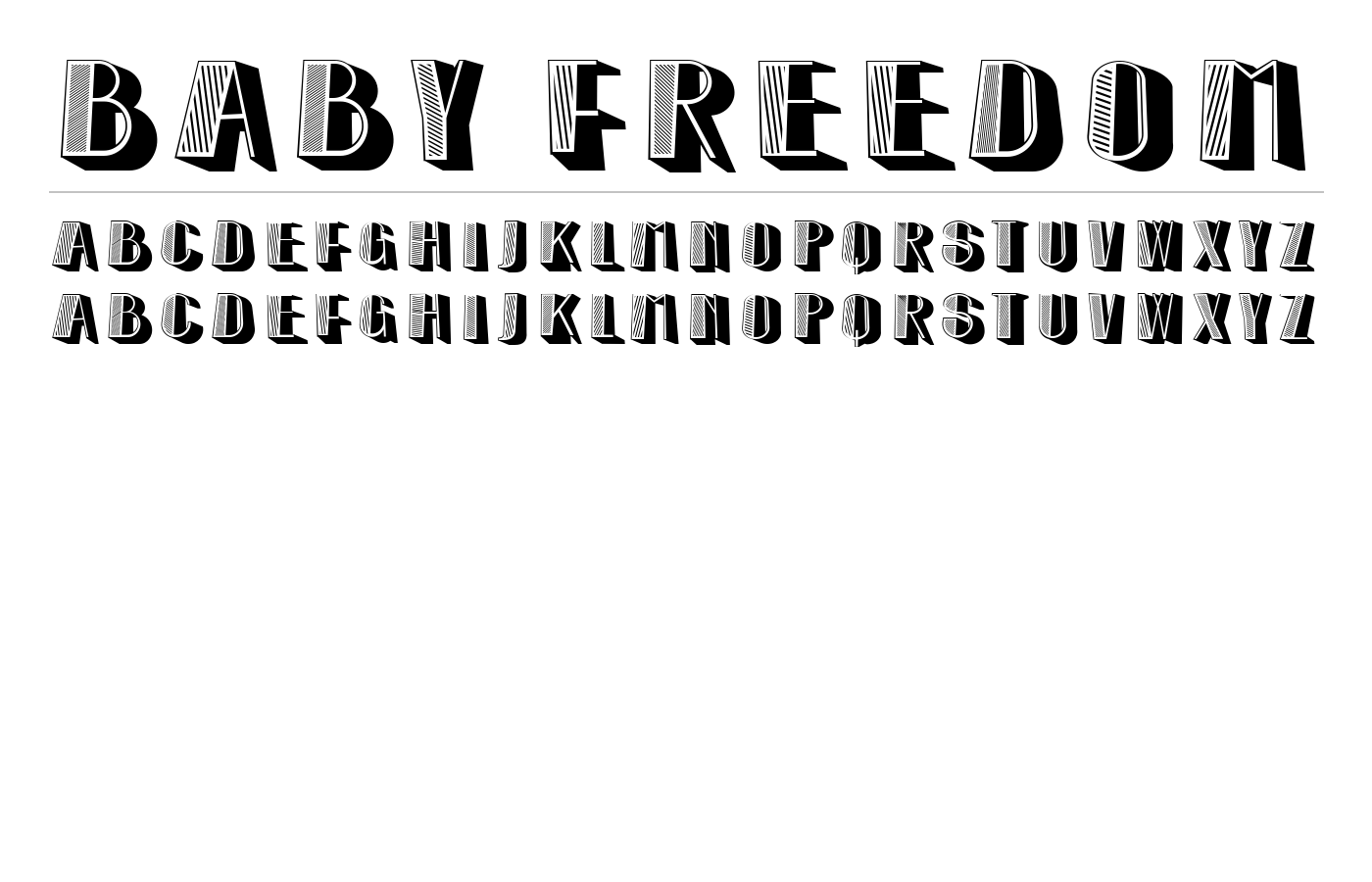
Baby Freedom is a bold, decorative sans serif font with a playful and vintage carnival vibe, featuring strong 3D shadow effects and striped textures that add depth and character to each letter. Its tall, condensed uppercase letterforms, combined with a dynamic mix of solid and striped fills, make it ideal for eye-catching headlines, posters, and branding that needs a fun yet impactful presence. This font works well for creative projects looking to capture a lively, retro spirit with a modern twist.
Baby Freedom Font
About Baby Freedom Font